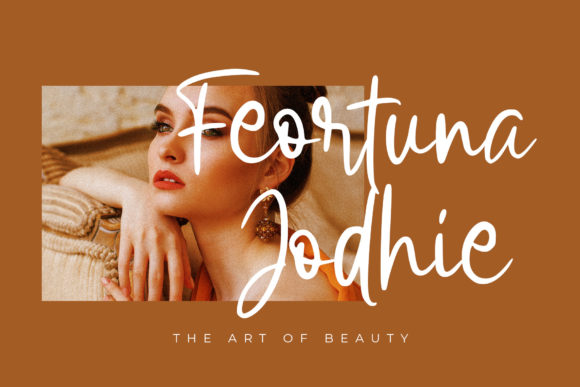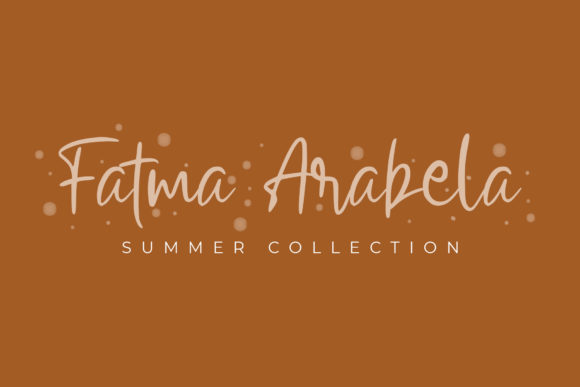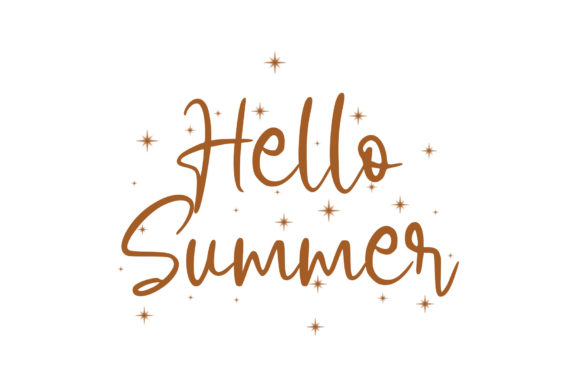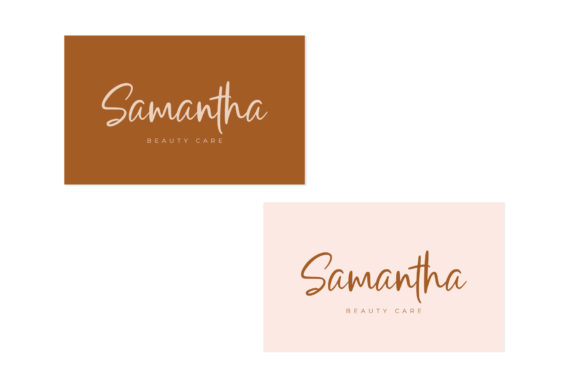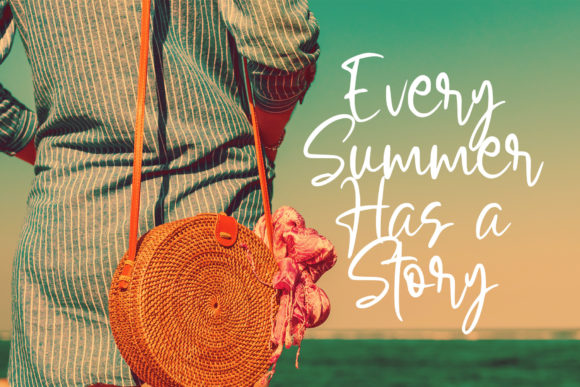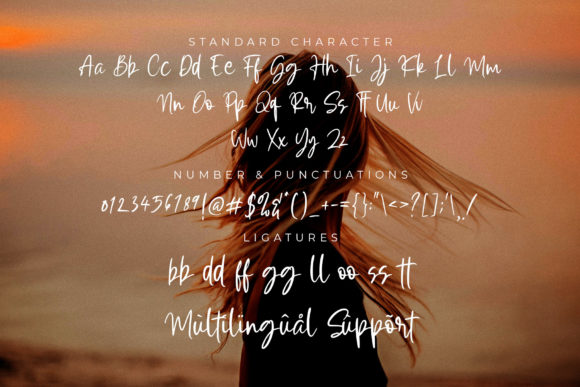
Introducing Autneys Font: Elevate Your Designs with Luxury and Elegance
Are you tired of using the same old fonts in your design projects? Do you want to add a touch of luxury and sophistication to your creations? Look no further than Autneys Font, a beautiful light handwritten font that is sure to make your designs stand out. With its unique feel and stunning impact, Autneys Font is the perfect choice for designers and crafters looking to elevate their work.
The Unique Characteristics of Autneys Font
Autneys Font is a light handwritten font that exudes elegance and refinement. Its delicate lines and curves give it a distinctive feel that is both modern and timeless. The font’s unique characteristics make it perfect for a wide range of design projects, from luxury branding and packaging to wedding invitations and digital marketing materials.
Add a Luxury Spark to Your Designs
Autneys Font is designed to add a luxury spark to any design project. Its beautiful, flowing lines and delicate curves give it a high-end feel that is sure to impress. Whether you’re creating a logo, brochure, or social media graphic, Autneys Font is the perfect choice for designers who want to create stunning, professional-looking designs. With Autneys Font, you can:
- Create luxurious branding and packaging that stands out from the crowd
- Design beautiful wedding invitations, stationery, and other paper goods
- Elevate your digital marketing materials with a sophisticated, high-end font
- Add a touch of elegance to your website or blog
Why Choose Autneys Font?
So why choose Autneys Font over other fonts on the market? Here are just a few reasons why Autneys Font stands out:
- Unique feel: Autneys Font has a distinctive feel that is both modern and timeless. Its delicate lines and curves give it a unique character that is sure to make your designs stand out.
- High-end look: Autneys Font has a luxurious, high-end look that is perfect for designers who want to create professional-looking designs.
- Versatility: Autneys Font is versatile and can be used for a wide range of design projects, from luxury branding and packaging to wedding invitations and digital marketing materials.
Autneys Font is a beautiful light handwritten font that is sure to elevate your design projects. With its unique feel and stunning impact, Autneys Font is the perfect choice for designers and crafters looking to add a touch of luxury and sophistication to their creations. Whether you’re creating luxury branding and packaging, wedding invitations, or digital marketing materials, Autneys Font is the perfect choice. So why wait? Try Autneys Font today and see the difference it can make in your designs!